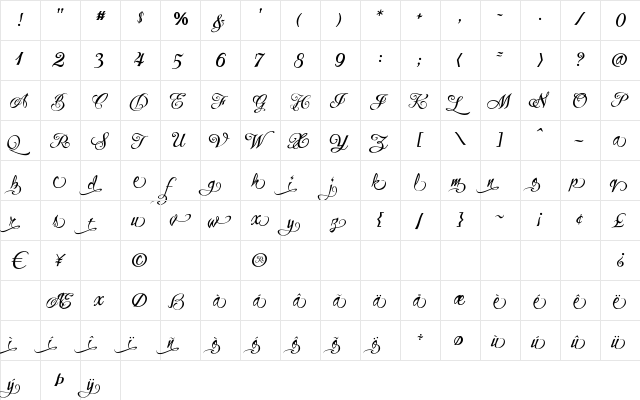
SkinDeep Swashes BB Regular
| Foundry | Nate Piekos. Blambot.com |
| Designer | Nate Piekos |
Design Context for SkinDeep Swashes BB Typeface
SkinDeep Swashes BB flows with the natural rhythm of handwritten lettering, making it ideal for designs that call for warmth and personal expression.
Font Pairing: Combine SkinDeep Swashes BB with a simple geometric sans for maximum contrast — the tension between flowing curves and clean structure is a classic typographic pairing.
Pro Tip: Pair SkinDeep Swashes BB with a clean sans-serif for supporting text. The contrast between fluid script and geometric structure creates an elegant typographic hierarchy.